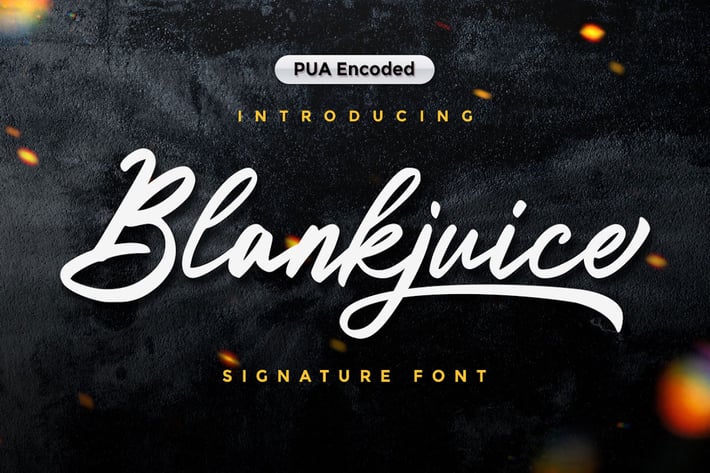
BlackJuice - Signature Font
Blankjuice - Signature Font
Blankjuice is a signature font that lets you achieve a handwritten feeling. Get inspired by its classic style. Perfect for branding, signature, watermark, business card, clothing, magazine, web, and any other design projects.
Blankjuice Signature Font is PUA encoded which means you can access all of the glyphs and swashes with ease!